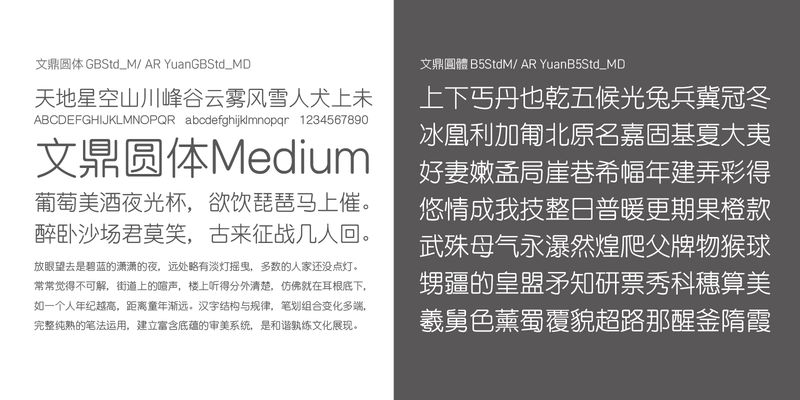
AR Yuan integrates Heiti’s features including simple stroke design, large counter structure, elegant and strong, it is softer and well-balanced different from traditional Mingti and Heiti has serious atmosphere. AR Yuan is suitable for printing’s headline, presentations, magazine and newspapers, etc.